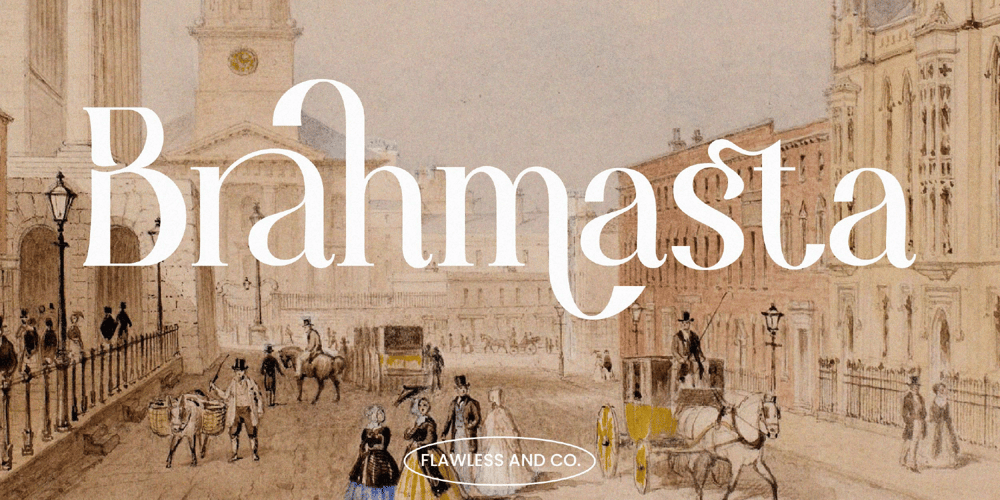
Brahmasta Font Family was designed by Achmad Yani and published by Flawlessandco. Brahmasta contains 1 styles and family package options. Brahmasta is a modern serif with a classic retro style that perfect for your retro-themed projects. Try out some alternate characters for another visual result!There’s some connected letters and some alternates that suitable for any graphic designs such as branding materials, t-shirt, print, business cards, logo, poster, t-shirt, photography, quotes .etcThis font support for some multilingual. Also contains uppercase A-Z and lowercase a-z, alternate character, numbers 0-9, and some punctuation.If you need help, just write me! Thanks so much for checking out my shop!